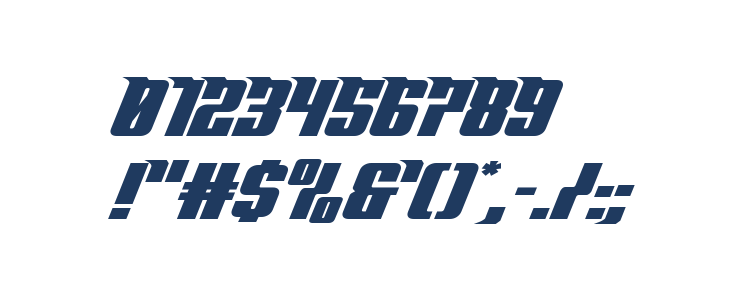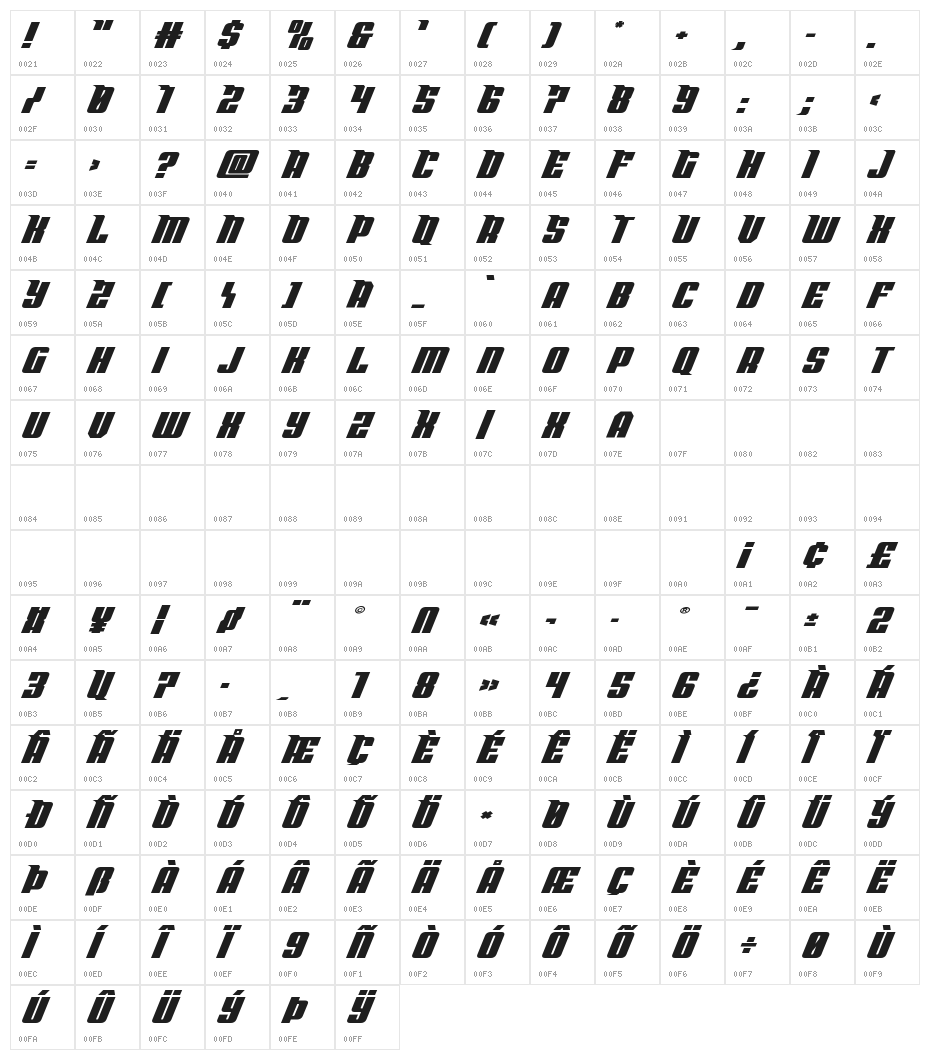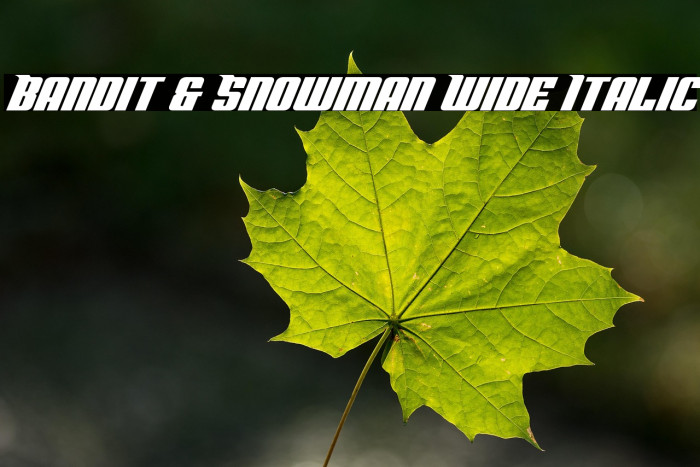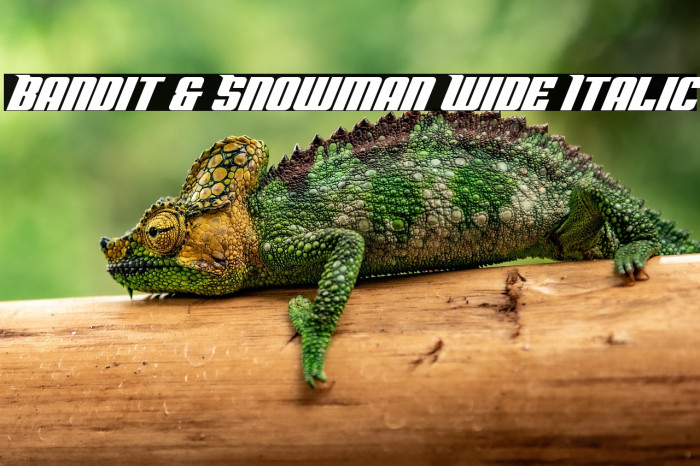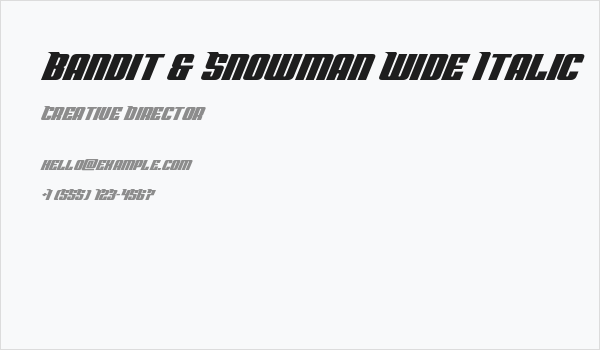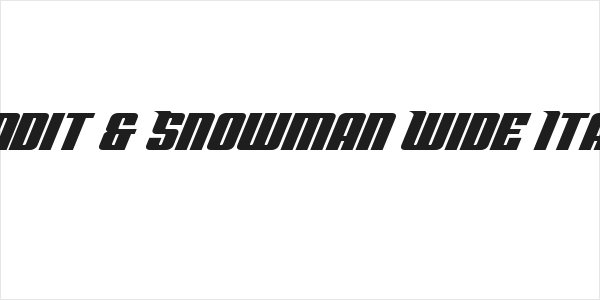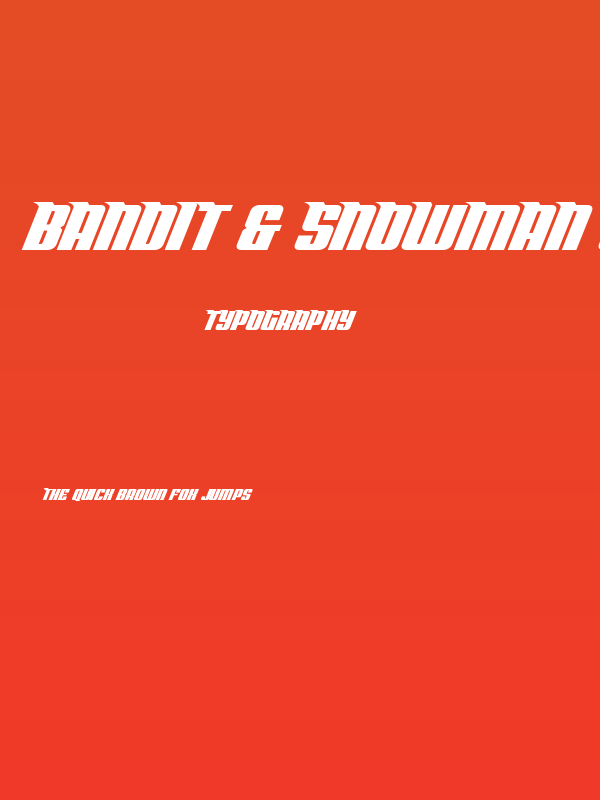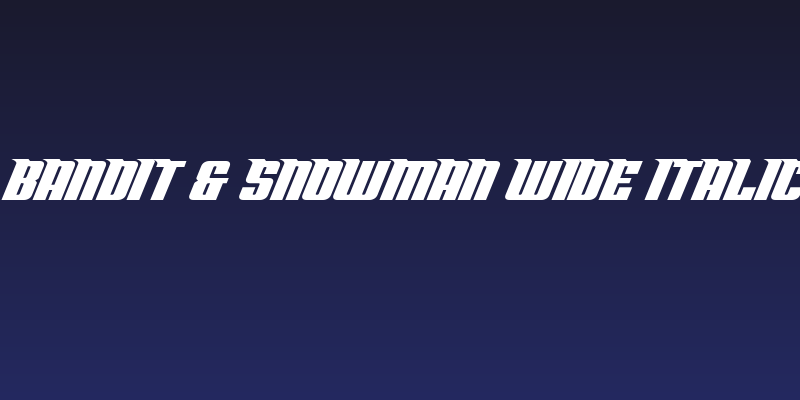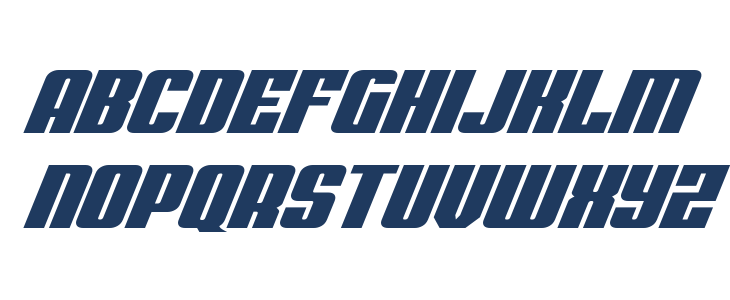
Bandit & Snowman Wide Italic Font
Bandit & Snowman Wide Italic Description
This font features a bold and dynamic style with a wide, italicized stance. The characters are robust and angular, giving a strong and impactful appearance. The uppercase letters are particularly striking, with sharp edges and a forward-leaning posture that conveys motion and energy. The lowercase letters maintain the same boldness, ensuring consistency across text. Numerals are equally bold and maintain the same angular design, making them highly legible. Special characters are designed to match the overall aesthetic, ensuring a cohesive look across all text elements.